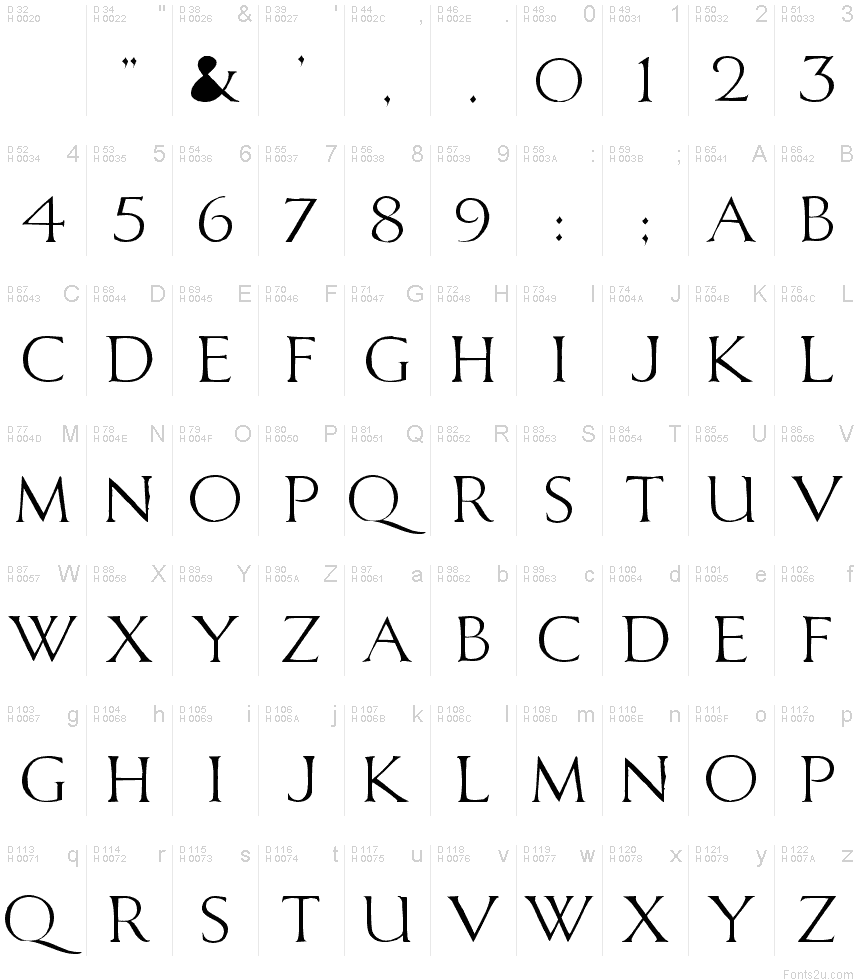
CaligulaDodgy
Caligula Dodgy font by Zetafonts is a free Roman serif font. Its drama comes from knife-thin strokes, sharp wedge cuts, and wide, stately spacing, giving words the hush of carved marble instead of ordinary type; it feels ancient, elegant, and just a little dangerous.
Using Caligula Dodgy shines on book covers, film titles, museum posters, wine labels, upscale menus, theatrical branding, and moody invitations. Set it large so the delicate rhythm can breathe, and pair this free font with a quiet modern sans for body copy.